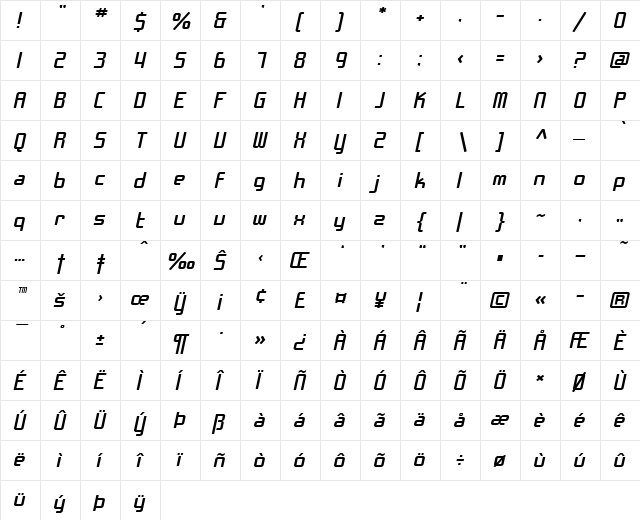
SF Chrome Fenders Extended Oblique
Design Context for SF Chrome Fenders Extended Typeface
SF Chrome Fenders Extended offers clean, dependable letterforms without strong stylistic allegiance, making it a practical choice for designers who need flexibility. The slanted form adds forward momentum and visual energy.